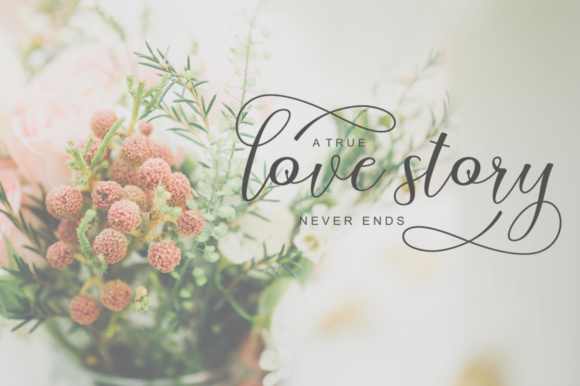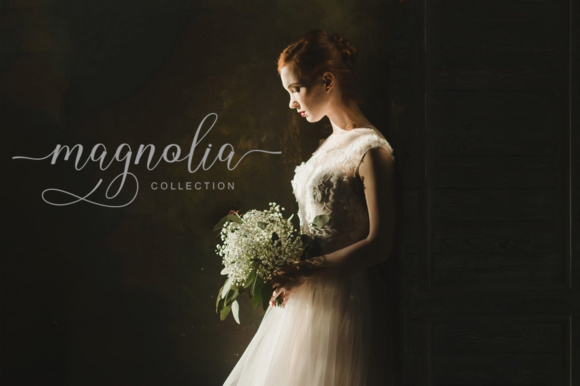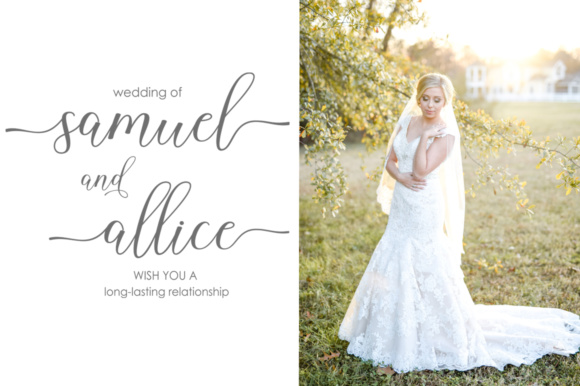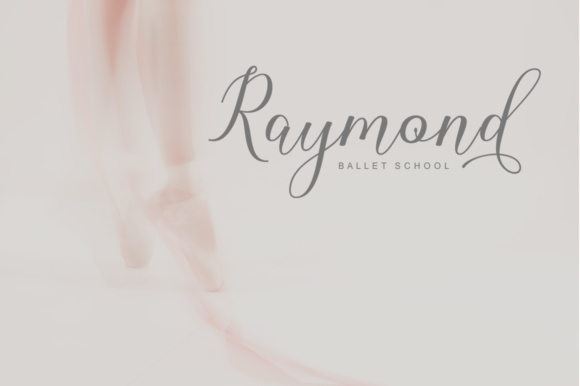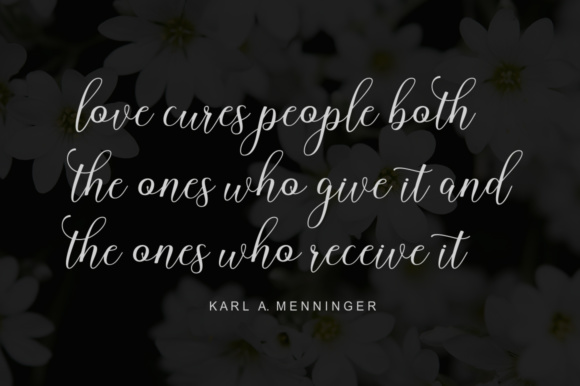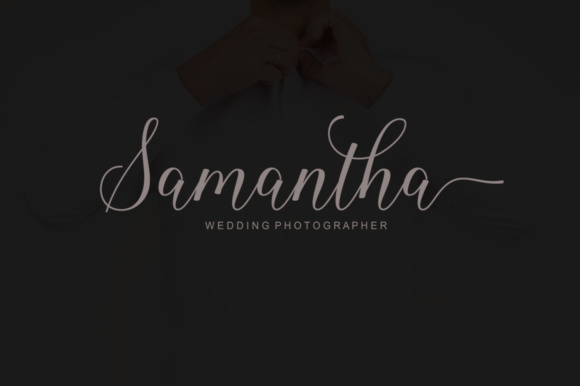
Fathinya Font: Elevate Your Design with Elegance and Sophistication
In the world of typography, fonts play a crucial role in conveying the tone and personality of a design. For designers and crafters seeking to add a touch of elegance and sophistication to their work, the Fathinya font is an excellent choice. This stunning calligraphy script font is designed to bring a sense of luxury and refinement to any design project.
The Beauty of Fathinya Font
The Fathinya font is a beautiful calligraphy script font that features exquisite alternative characters. Its elegant and flowing lines are perfect for creating sophisticated and eye-catching designs. The font’s classic style makes it an ideal choice for formal designs, such as invitations, labels, menus, logos, and more.
One of the standout features of the Fathinya font is its feminine, sensual, and glamorous aesthetic. The font’s curves and swashes are carefully crafted to evoke a sense of luxury and refinement, making it perfect for designs that require a touch of sophistication. Whether you’re working on a fashion brand, a beauty product, or a high-end event invitation, the Fathinya font is sure to impress.
Key Features of Fathinya Font
The Fathinya font comes with a range of features that make it an excellent choice for designers and crafters. Some of its key features include:
- Beautiful alternative characters: The Fathinya font features stunning alternative characters that allow you to add a touch of uniqueness to your designs.
- Feminine and sensual aesthetic: The font’s curves and swashes are carefully crafted to evoke a sense of luxury and refinement.
- Highly readable: Despite its elegant and flowing lines, the Fathinya font is highly readable, making it perfect for body text and headings.
- Classic style: The font’s classic style makes it an ideal choice for formal designs, such as invitations, labels, and menus.
Uses of Fathinya Font
The Fathinya font is a versatile typeface that can be used in a wide range of design projects. Some of the most popular uses of the font include:
- Invitations: The Fathinya font is perfect for creating elegant and sophisticated invitations for weddings, parties, and other formal events.
- Labels and packaging: The font’s classic style and elegant aesthetic make it an excellent choice for labels and packaging design.
- Menus: Add a touch of luxury to your restaurant or cafe’s menu with the Fathinya font.
- Logos: The Fathinya font is a great choice for logos that require a touch of sophistication and elegance.
- Fashion and beauty: The font’s feminine and sensual aesthetic make it perfect for fashion and beauty brands.
Tips for Using Fathinya Font
To get the most out of the Fathinya font, here are a few tips to keep in mind:
- Pair with a sans-serif font: Pairing the Fathinya font with a sans-serif font can create a beautiful contrast and add visual interest to your design.
- Use alternative characters: Take advantage of the font’s beautiful alternative characters to add a touch of uniqueness to your design.
- Experiment with colors: The Fathinya font looks stunning in a range of colors, from metallic gold and silver to rich jewel tones.
In conclusion, the Fathinya font is a stunning calligraphy script font that is perfect for designers and crafters seeking to add a touch of elegance and sophistication to their work. With its beautiful alternative characters, feminine and sensual aesthetic, and highly readable design, the Fathinya font is an excellent choice for a wide range of design projects.